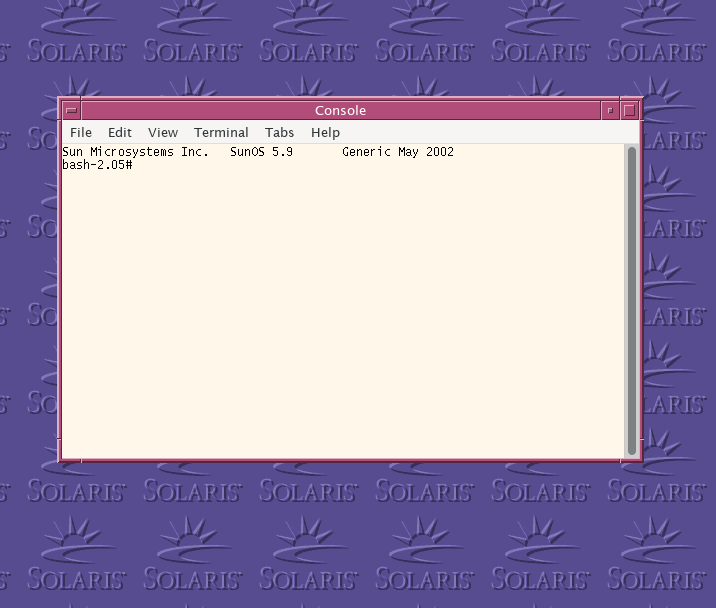
• A work in progress font based on the Sun Solaris terminal font. I say work in progress because I plan on adding more characters.
Here's the font in action. This is my personal Arch Linux setup made to look like Solaris 9.